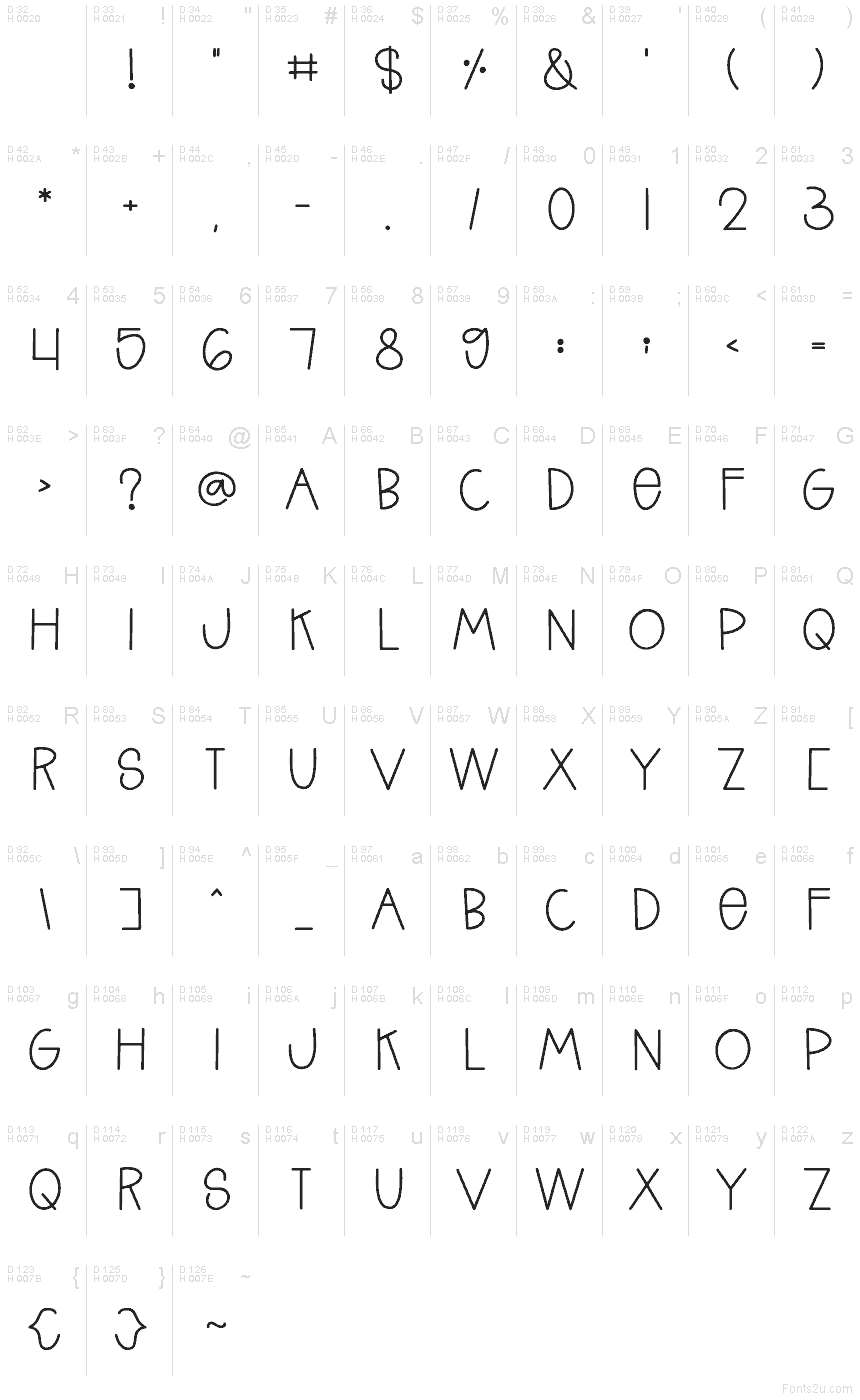
FBAutumnIsCalling
FB Autumn Is Calling font by Font Bundles is a free thin hand-drawn comic display font. Its lanky, easygoing letters have a wiry, twig-like quality and gentle wobble that feels sketched in one confident stroke. Airy spacing and tall forms create a breezy rhythm, giving headlines a casual warmth without getting messy or childish.
Using FB Autumn Is Calling, your seasonal posters, classroom printables, greeting cards, craft labels, social posts, and kids’ book titles all gain a cozy, handmade charm. The light strokes shine at larger sizes, where the inky, slightly irregular lines read crisp and friendly. Pair this free font with a clean rounded sans for body copy, and let the display set the tone up top.